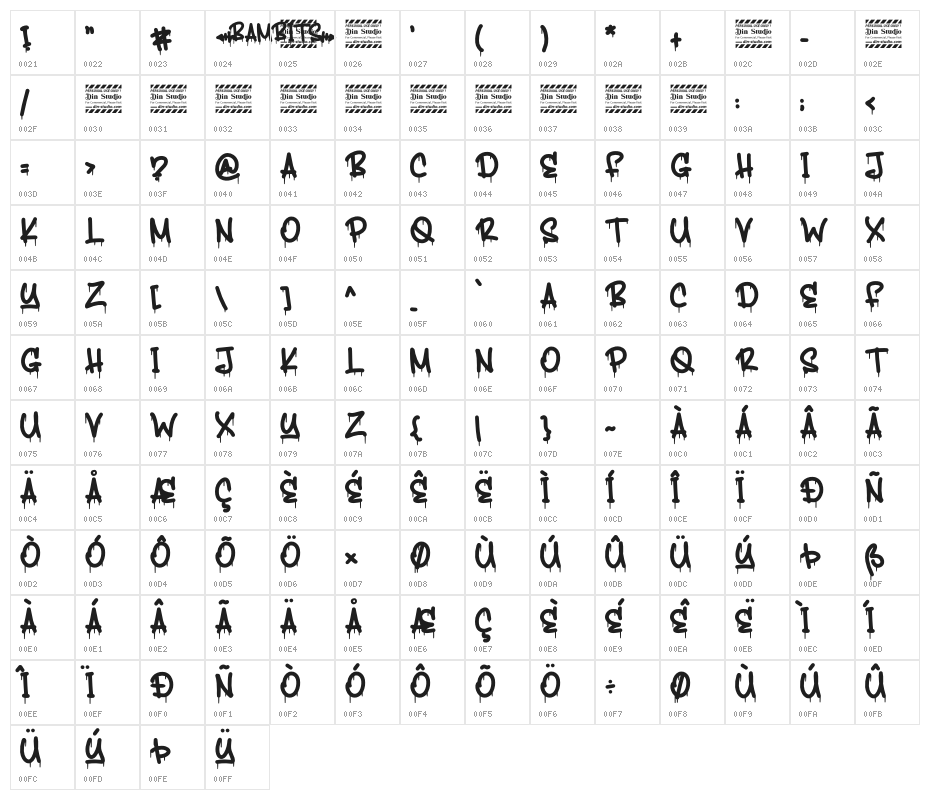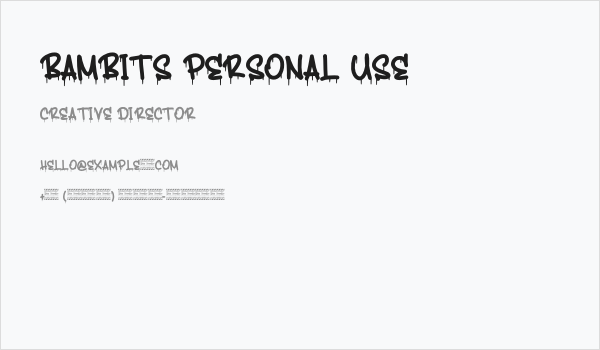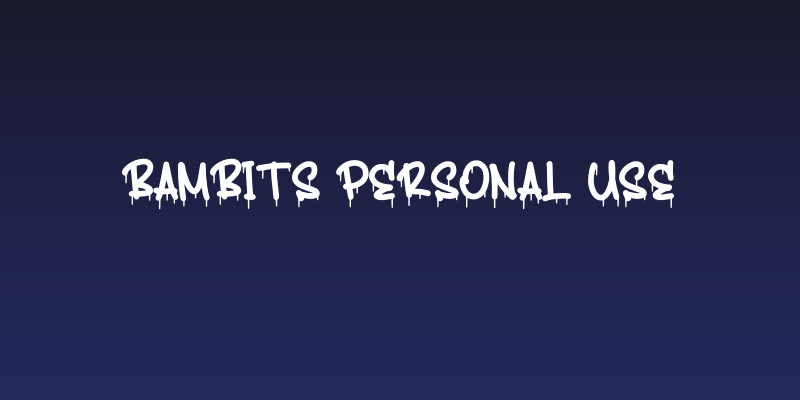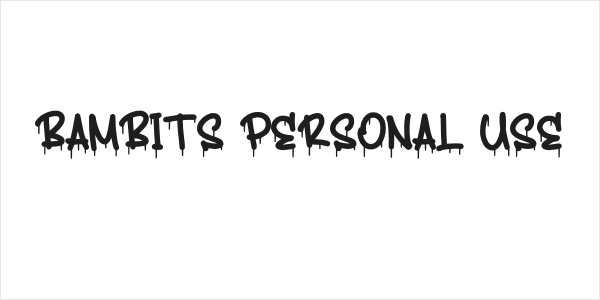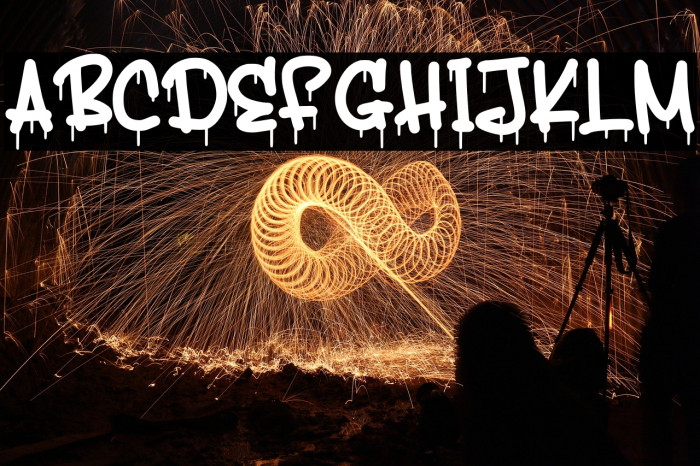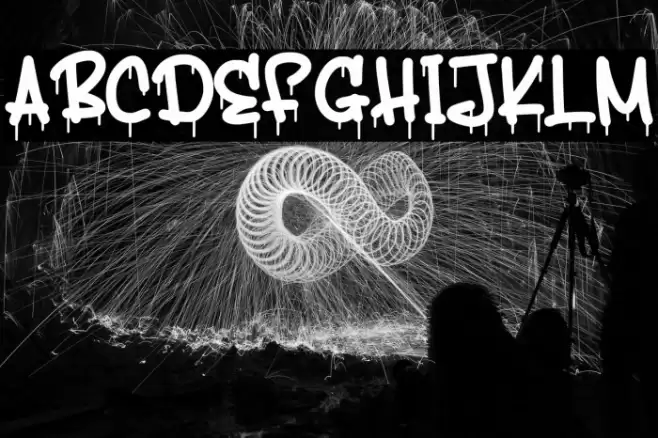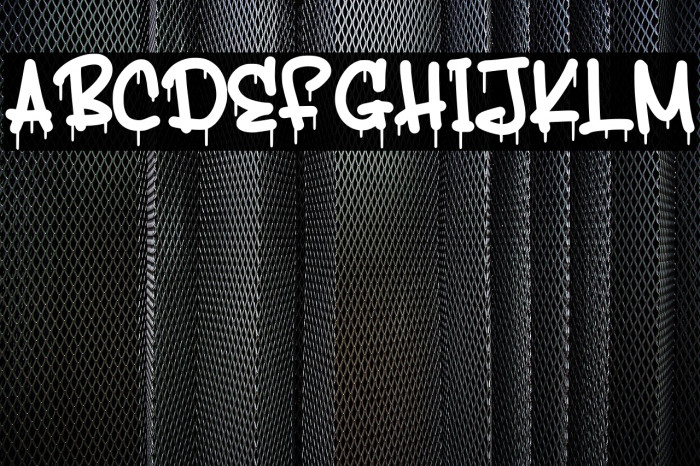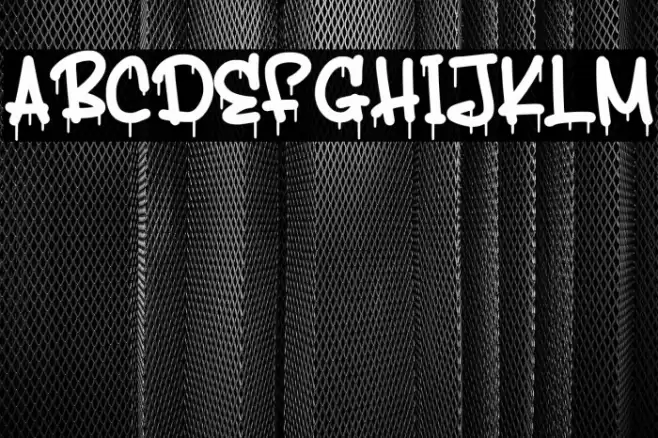
Bambits Personal Use Font
✎ Graffiti
Bambits Personal Use Description
This font features a bold, graffiti-inspired style with a dripping effect that gives it a dynamic and edgy appearance. The uppercase letters are prominent and expressive, with a playful yet rebellious character. The font's design mimics the look of spray paint, making it ideal for urban-themed projects. The characters are tightly spaced, enhancing the compact and impactful nature of the text. The font's unique style is both eye-catching and memorable, suitable for creative and unconventional designs.
| Overall Style | Urban, Edgy, Graffiti |
| Proposed Projects | Ideal for street art designs, music album covers, event posters, and any project requiring a bold, urban aesthetic. |